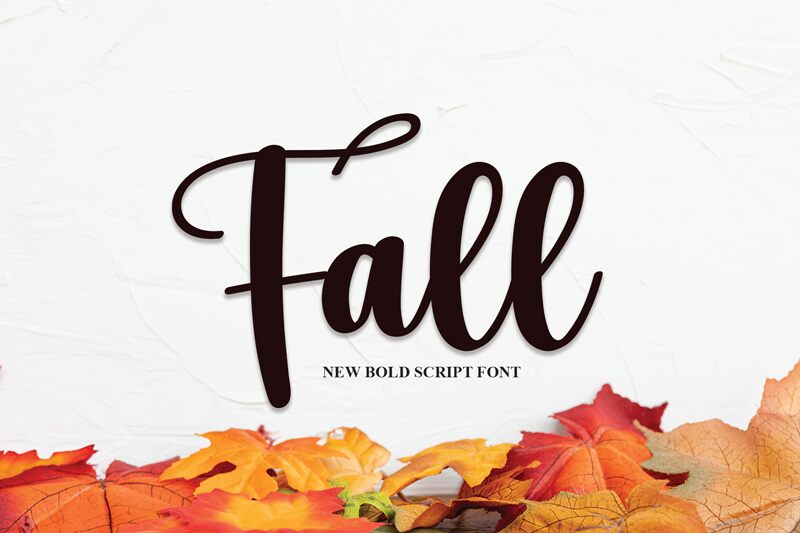
Fall
Fall, a mesmerizing creation by Scratchones, is a stunning calligraphy font that exudes elegance and grace. With its intricate curves and delicate strokes, Fall adds a touch of sophistication to any project.
Perfect for wedding invitations, fine dining menus, or luxury brand logos, this font effortlessly captures attention and leaves a lasting impression. Its versatility makes it equally suitable for fashion magazines, high-end branding campaigns, or heartfelt greeting cards.
Let Fall be the exquisite choice that elevates your designs to new heights of beauty and refinement.